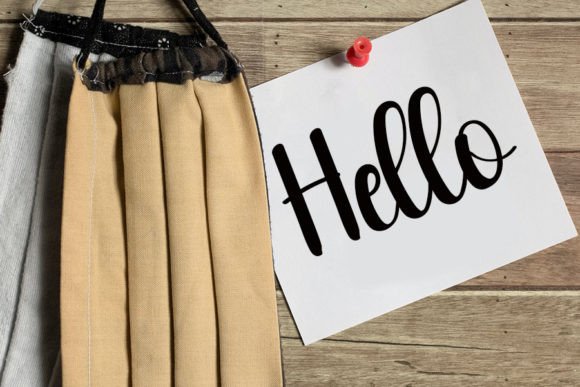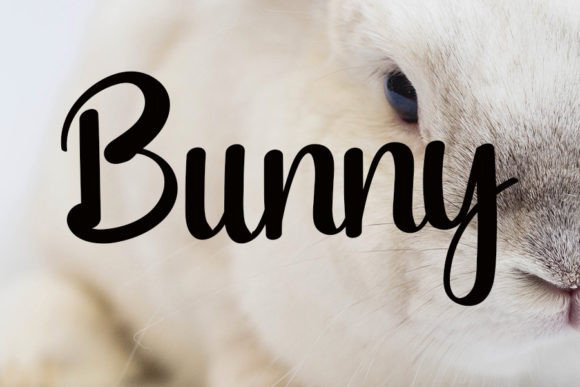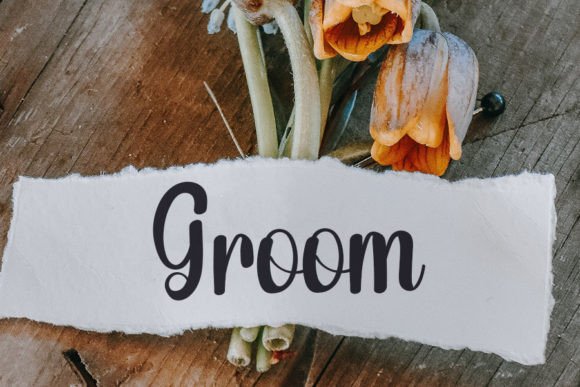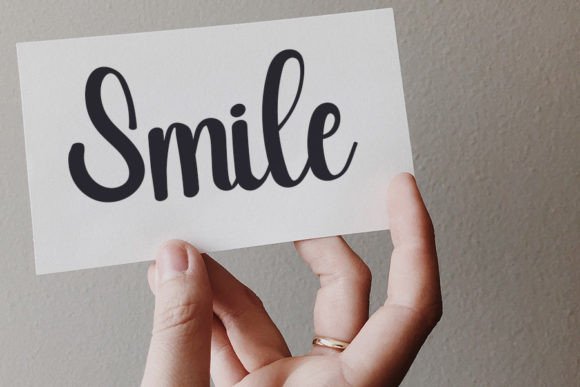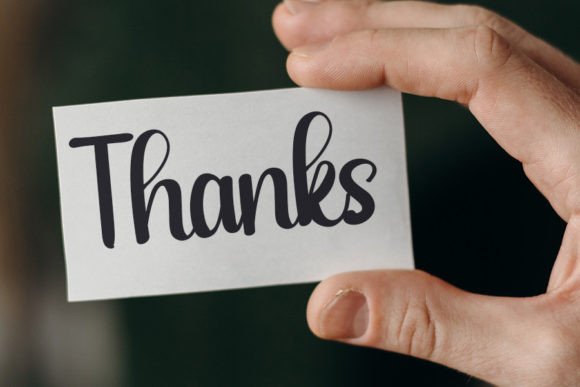
Bubly Font: Elevate Your Designs with a Modern Handwritten Style
In the world of typography, a well-crafted font can make all the difference in elevating your design projects from ordinary to extraordinary. If you’re on the hunt for a font that exudes a modern vibe while maintaining a classic touch, look no further than the Bubly Font. This cool handwritten font is inspired by the elegance of classic calligraphy, offering a balanced and varied style that’s perfect for designers and crafters alike.
The Inspiration Behind Bubly Font
Bubly Font draws its inspiration from the timeless beauty of classic calligraphy. With a keen eye for detail, the creators of Bubly aimed to capture the essence of traditional calligraphic styles while infusing it with a modern twist. The result is a font that feels both nostalgic and fresh, making it an excellent choice for a wide range of design applications.
Key Characteristics of Bubly Font
- Balanced and Varied: One of the standout features of Bubly Font is its balanced and varied style. The font is designed to offer a range of expressions, from subtle to more pronounced, ensuring that your text never looks monotonous.
- Not Too Thin, Not Too Thick: The creators of Bubly have carefully calibrated the font’s weight to achieve a perfect balance. It’s not too thin to the point of being fragile, nor is it too thick to appear overbearing. This balance makes Bubly Font incredibly versatile.
- Modern Vibe with a Classic Touch: Bubly Font manages to marry modern sensibilities with classic calligraphic elements seamlessly. This blend of old and new ensures that your designs stand out with a unique flair.
- Spotless Form: The term “spotless” refers to the clean and pristine appearance of the font. Each letterform is meticulously crafted to ensure clarity and readability, making Bubly Font suitable for both digital and print applications.
Whether you’re a professional designer working on a client’s project or a crafter looking to add a personal touch to your creations, Bubly Font is an excellent addition to your typographic arsenal. Its versatility means it can be used across a variety of projects, including:
- Branding: Give your brand a unique identity with Bubly Font. Its modern yet classic appeal can help your brand stand out in a crowded marketplace.
- Stationery: Elevate your stationery designs, such as business cards, letterheads, and invitations, with the elegant and modern feel of Bubly Font.
- Digital Content: For bloggers, content creators, and social media influencers, Bubly Font can add a touch of personality to your digital content, making it more engaging for your audience.
- Crafting Projects: If you’re into crafting, whether it’s making personalized gifts, decorations, or selling your wares online, Bubly Font can help you add a professional and aesthetic touch to your projects.
How to Use Bubly Font Effectively
To get the most out of Bubly Font, consider the following tips:
- Mix and Match: Don’t be afraid to experiment with different weights and styles within the Bubly Font family to create visual interest.
- Pair Wisely: When pairing Bubly Font with other fonts, choose fonts that complement its modern yet classic vibe. A sans serif font for body text can create a nice contrast.
- Consider Context: Think about where and how your design will be used. Adjust the size, color, and styling of Bubly Font to ensure it works well across different mediums.
Bubly Font is more than just a typeface; it’s a tool for designers and crafters to infuse their projects with a modern, yet timeless elegance. Its balanced and varied style, inspired by classic calligraphy, makes it an excellent choice for a wide range of applications. By incorporating Bubly Font into your design repertoire, you’re not just choosing a font; you’re elevating the aesthetic and professional quality of your work.